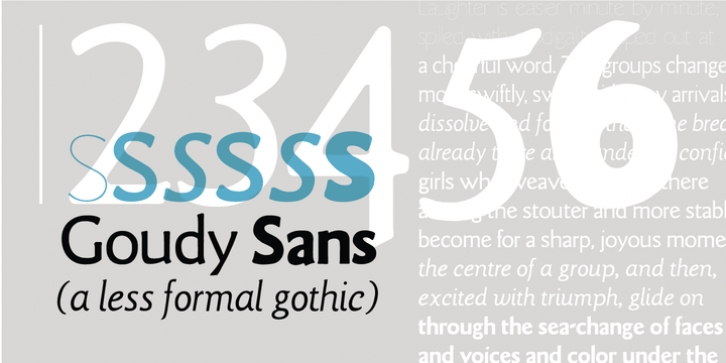
LTC Goudy Sans downloadDesigner: Frederic W. Goudy,
Publisher: Lanston Type Company
Goudy Sans Bold was originally designed by Fredric Goudy in 1922 as a less formal “gothic” and finished in 1929. The light was designed in 1930 and the Light Italic in 1931.
Alternate letterforms are included in these three Goudy designs which are digitized true to their original design.
In 2006, designer Colin Kahn drew “LTC Goudy Sans Regular” which is a medium weight version intended for text purposes. Kahn has also designed an experimental “LTC Goudy Sans Hairline” which has a skeletal almost mono-width stroke and results in a surprisingly elegant display face.